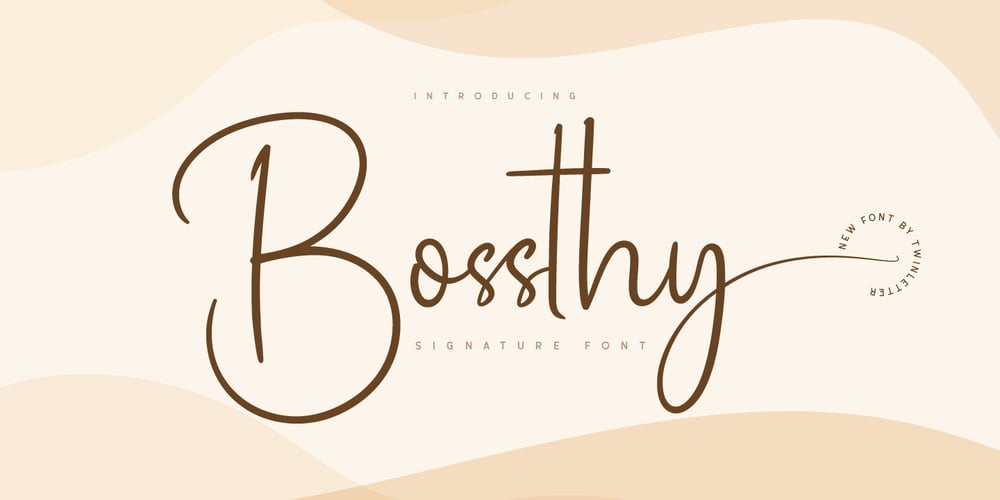
Bossthy Font Family was designed by Rozikan and published by Twinletter. Bossthy contains 3 styles and family package options. Bossthy is a signature font with a simple modern theme and has a unique curve in each letter, which is written in natural hand strokes making this font more natural,This font in addition to having a dazzling and elegant shape is also equipped with various alternative options that make it easier for you to create beautiful and extraordinary designsThis font is perfect for business cards, photography studios, autographs, interior designs, model names, coffee late, travel, weddings, cosmetics, jewelry, social media posts, product packaging, watermarks, special events, or anything else.Start using this font to add an authentic and heartfelt vibe to any design project.